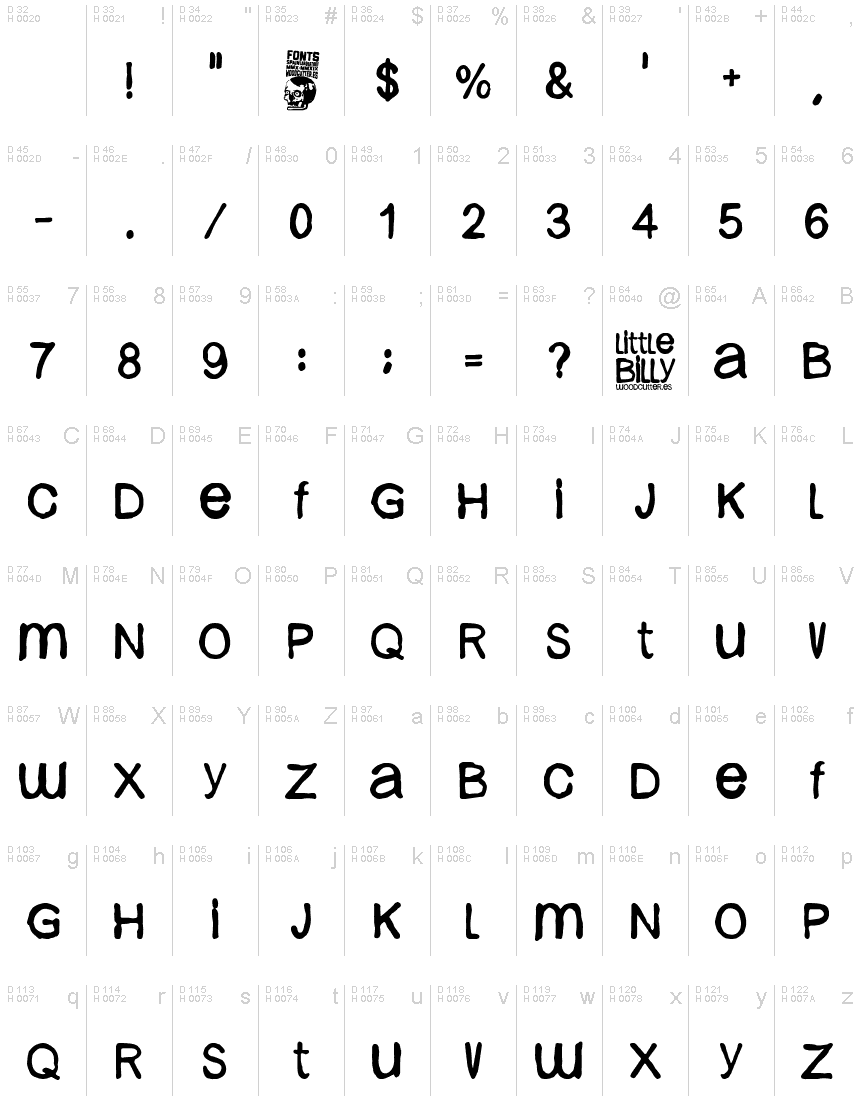
Little Billy
Little Billy, a masterpiece by Woodcutter, is a captivating display font with an eroded style that exudes raw authenticity. Its weathered appearance lends itself perfectly to vintage-themed projects, evoking nostalgia and charm.
Use Little Billy's intricately worn edges on album covers, old-fashioned signage, or even tattoo designs for a touch of rebellious character. This unique font adds an artistic flair to your branding materials or packaging, making it ideal for craft breweries or artisanal food products.
Let Little Billy transport your audience to a world of timeless beauty and craftsmanship.
Little Billy.